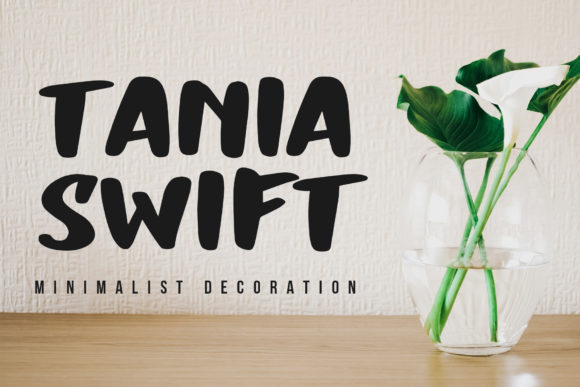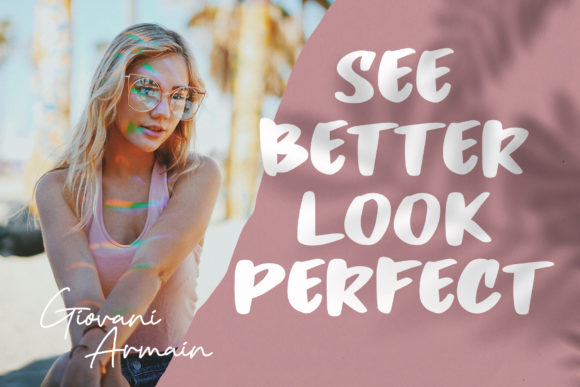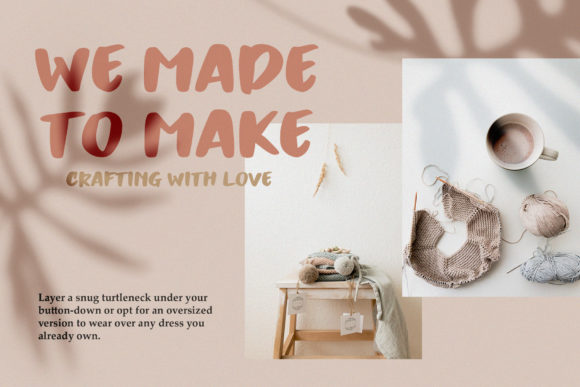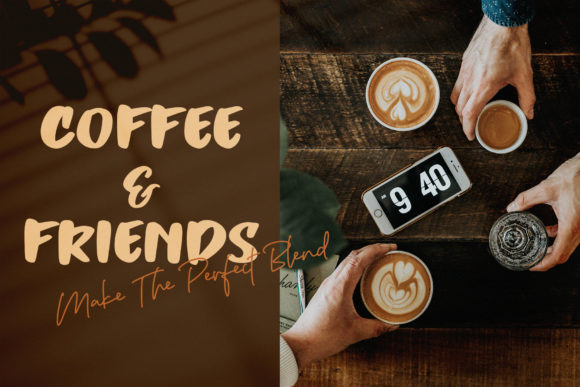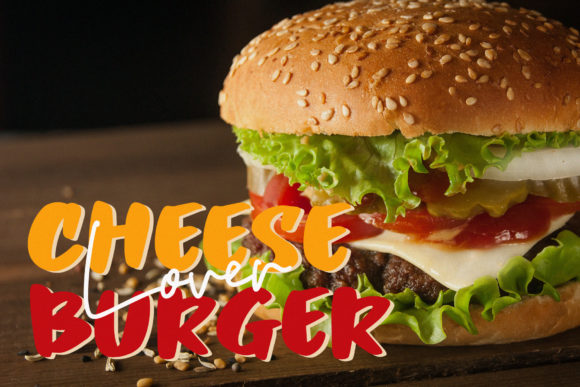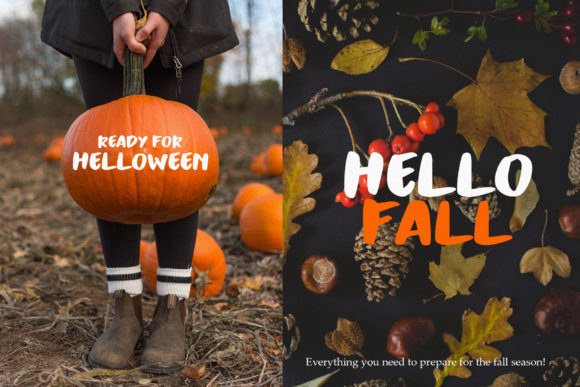
Gareth Font: Elevate Your Designs with a Classic and Modern Style
Gareth is a unique display font that can instantly give your designs a classic and modern style. As a designer or crafter, you’re always on the lookout for typography that can make your work stand out. Gareth font is here to help you achieve just that. In this article, we’ll explore the features and benefits of Gareth font, and how it can elevate your designs to the next level.
The Story Behind Gareth Font
Gareth font is a carefully crafted typeface designed to bring a touch of elegance and sophistication to your designs. Its unique blend of classic and modern elements makes it perfect for a wide range of applications, from branding and advertising to packaging and digital media. Whether you’re working on a logo, brochure, or website, Gareth font is sure to make a lasting impression.
Key Features of Gareth Font
- Unique Display Font: Gareth font is a display font that is designed to grab attention and make a statement. Its bold and elegant design makes it perfect for headlines, titles, and other display text.
- Classic and Modern Style: Gareth font combines the best of both worlds, blending classic elements with modern flair. This makes it perfect for designers who want to create timeless designs with a contemporary twist.
- Highly Versatile: Gareth font is highly versatile and can be used in a wide range of applications, from print to digital media.
- Easily Readable: Despite its bold design, Gareth font is easily readable, even at smaller sizes. This makes it perfect for body text and other applications where readability is key.
Benefits of Using Gareth Font
So, why should you choose Gareth font for your next design project? Here are just a few benefits of using this amazing typeface:
- Stand Out from the Crowd: Gareth font is a unique and distinctive typeface that will help your designs stand out from the crowd.
- Elevate Your Brand: With its classic and modern style, Gareth font is perfect for brands who want to convey a sense of sophistication and elegance.
- Save Time and Effort: Gareth font is easy to use and can be easily integrated into your design workflow, saving you time and effort.
- Perfect for Designers and Crafters: Whether you’re a professional designer or a crafter, Gareth font is perfect for anyone who wants to create beautiful and effective designs.
How to Use Gareth Font in Your Designs
Using Gareth font in your designs is easy. Here are a few tips to get you started:
- Pair it with Other Fonts: Gareth font looks great when paired with other fonts. Try pairing it with a clean sans-serif font for a bold and modern look.
- Experiment with Different Sizes: Gareth font is highly versatile and can be used at a wide range of sizes. Experiment with different sizes to find the one that works best for your design.
- Use it for Headlines and Titles: Gareth font is perfect for headlines and titles. Use it to grab attention and make a statement.
In conclusion, Gareth font is a unique and versatile typeface that can elevate your designs to the next level. With its classic and modern style, it’s perfect for designers and crafters who want to create beautiful and effective designs. Whether you’re working on a logo, brochure, or website, Gareth font is sure to make a lasting impression. So why wait? Download Gareth font today and start creating stunning designs that will leave a lasting impression on your audience.